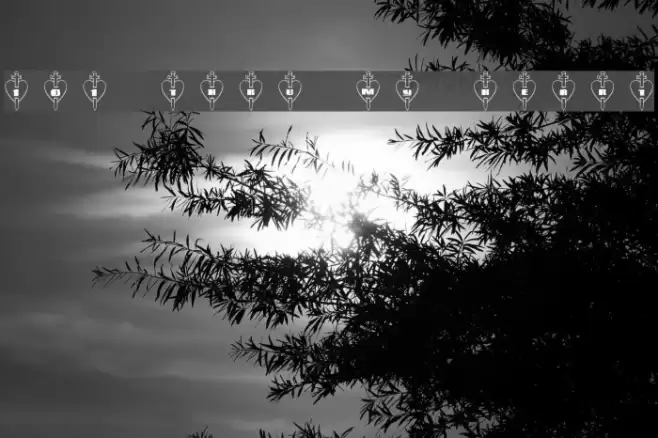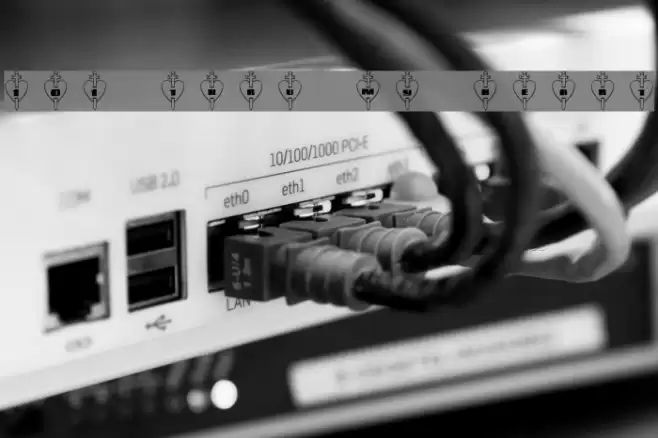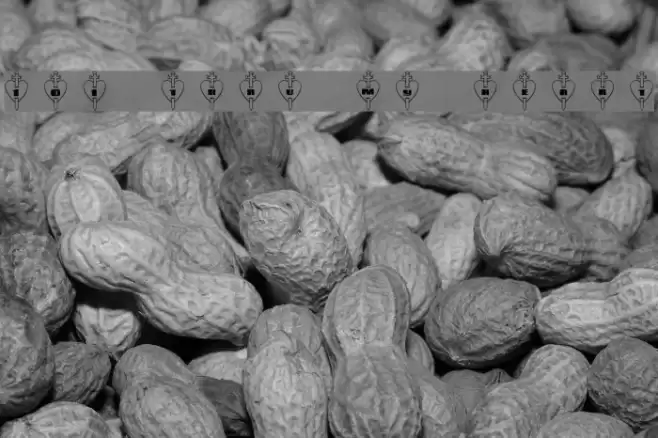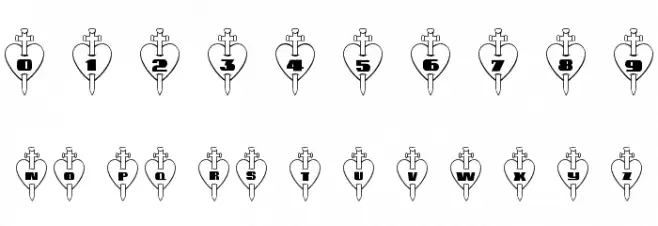
101! Thru My Heart Font
101! Thru My Heart Description
This unique decorative font features each character enclosed within a heart shape, topped with a stylized cross. The letters and numbers are bold and prominent, making them stand out within the heart design. The overall aesthetic combines elements of romance and spirituality, creating a distinctive and memorable appearance. The font is consistent across uppercase, lowercase, and numeric characters, maintaining the heart and cross motif throughout. This design is particularly eye-catching and would be suitable for projects that require a touch of elegance and symbolism.
A decorative font with characters enclosed in heart shapes topped with crosses from Uncategorized fonts.
- Proposed Projects: Ideal for wedding invitations, religious event flyers, romantic greeting cards, and themed merchandise.
- Use Case: Logos, Headlines, Invitations